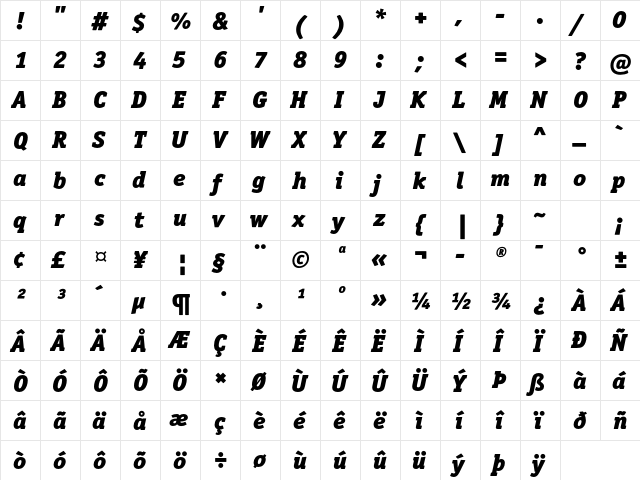
OfficinaSerITCStd BlackItalic Font Preview
OfficinaSerITCStd BlackItalic
| Designer | Erik Spiekermann and Ole Schaefer |
Design Context for OfficinaSerITCStd Typeface
OfficinaSerITCStd offers clean, dependable letterforms without strong stylistic allegiance, making it a practical choice for designers who need flexibility. Its italic angle brings a sense of urgency and motion to the letterforms.
Pro Tip: Use OfficinaSerITCStd for emphasis, pull quotes, and subheadings where its slanted energy can add rhythm to the layout.